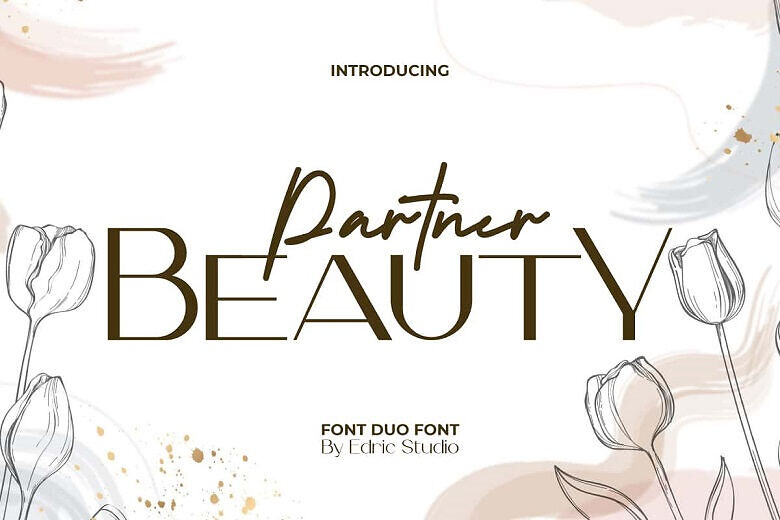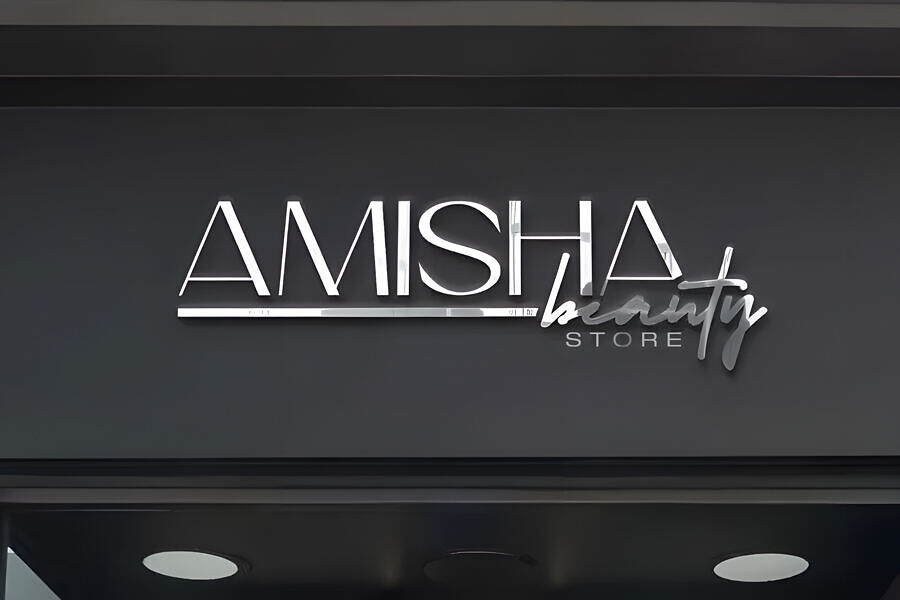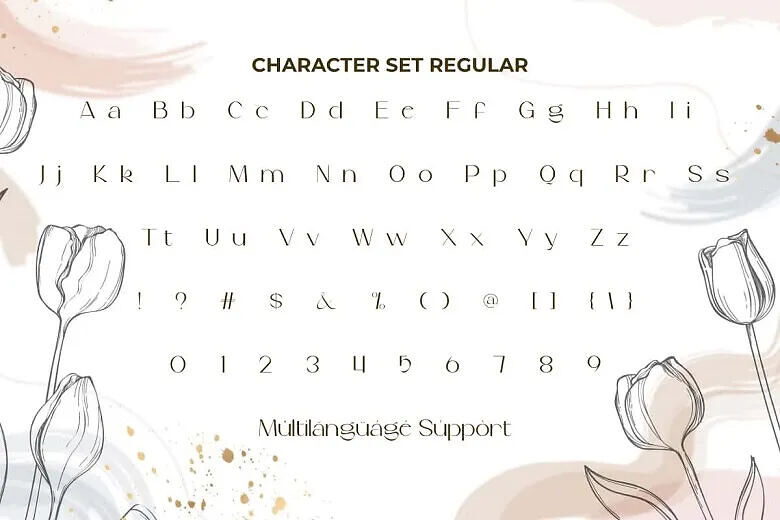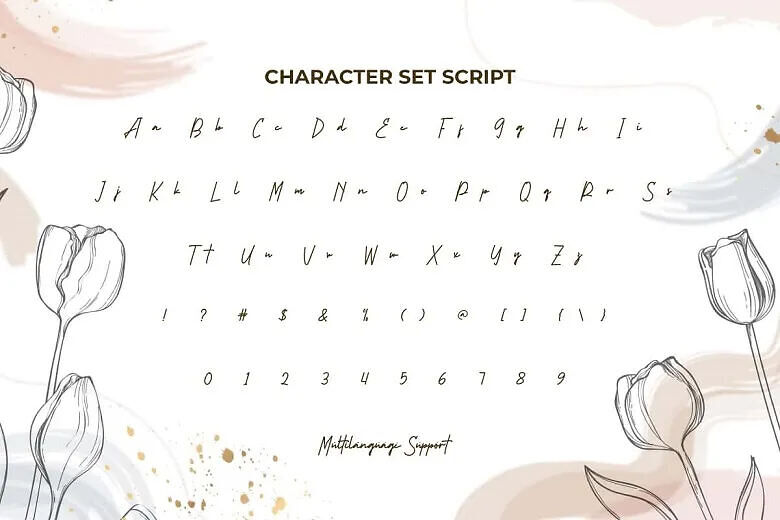
Partner Beauty Font
Partner Beauty is a stunning font duo that blends a modern sans serif with a graceful signature script. Perfect for beauty product, fashion, graphic design, perfume brand, spa salon, writer, and much more.
The font duo comes in two styles: Sans Serif Display and Signature Script. Both have a full set of Uppercase and Lowercase Basic Characters, Numbers, Punctuation, and Symbols. This gives a more interesting look to your layout from a versatile set of fonts that can be used on a variety of design projects. Perfect for label, logos, product packaging, signage, stationery, website, and much more.